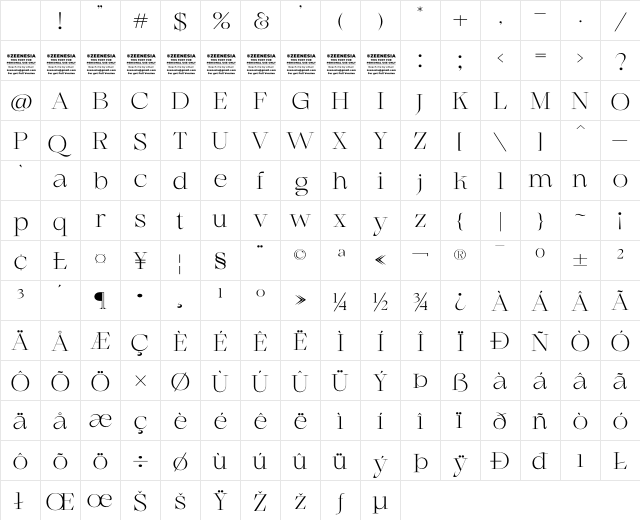
Complete Marginal Personal Use Only Regular glyph index. Displaying only characters natively supported by Marginal Personal Use Only Regular font.
Marginal Personal Use Only is a composed and adaptable typeface that performs quietly and consistently across a wide range of design contexts.
Pro Tip: Use Marginal Personal Use Only in both headline and body roles to test its range before committing to a single application.